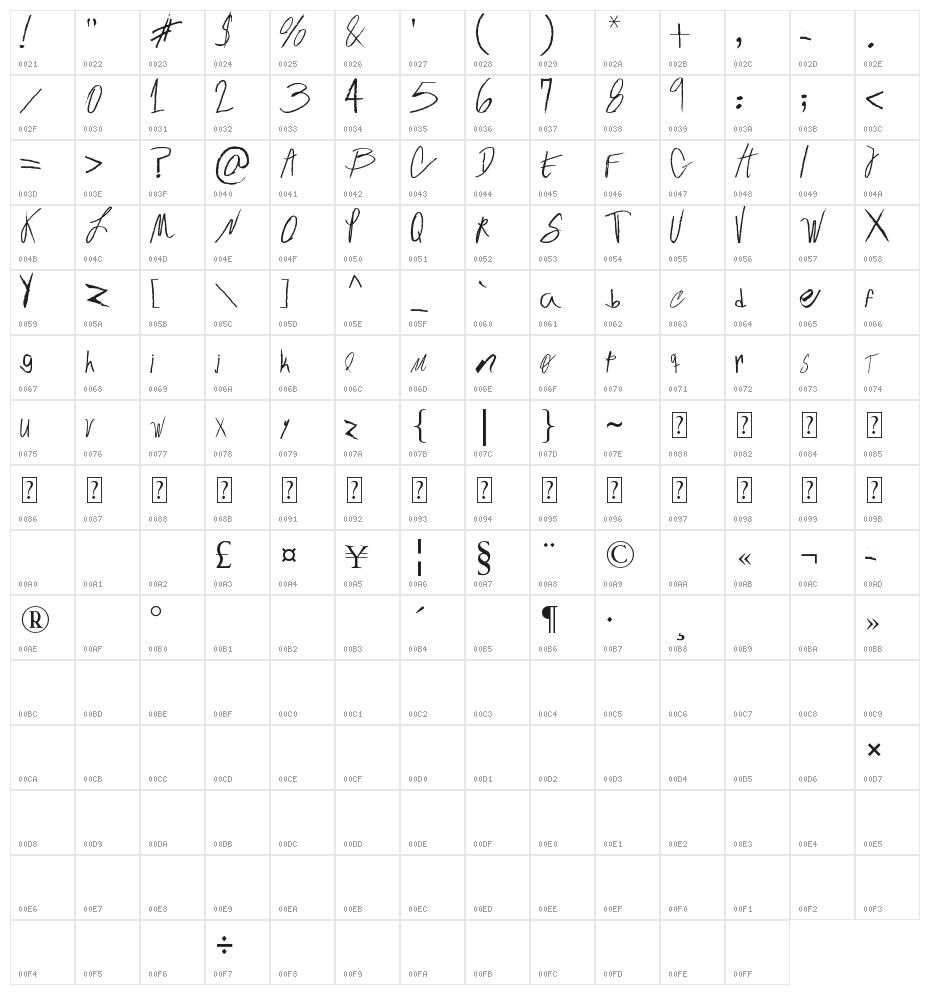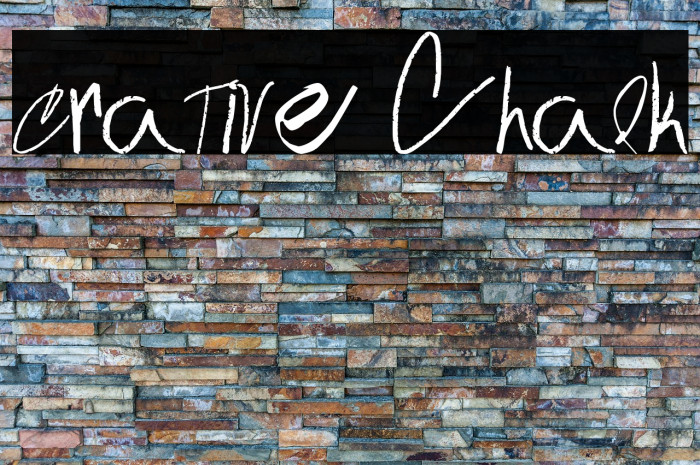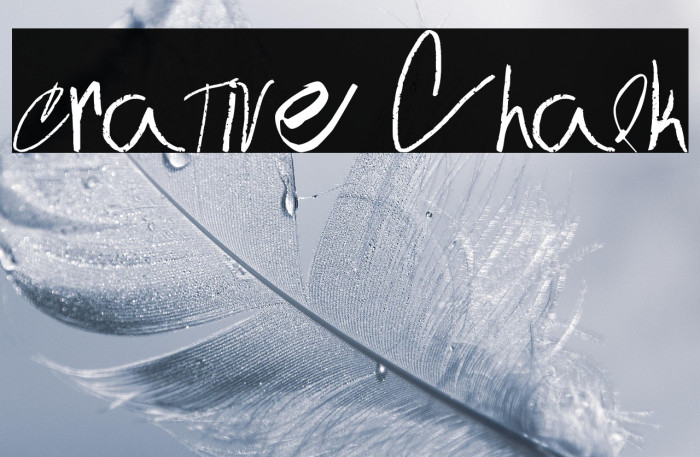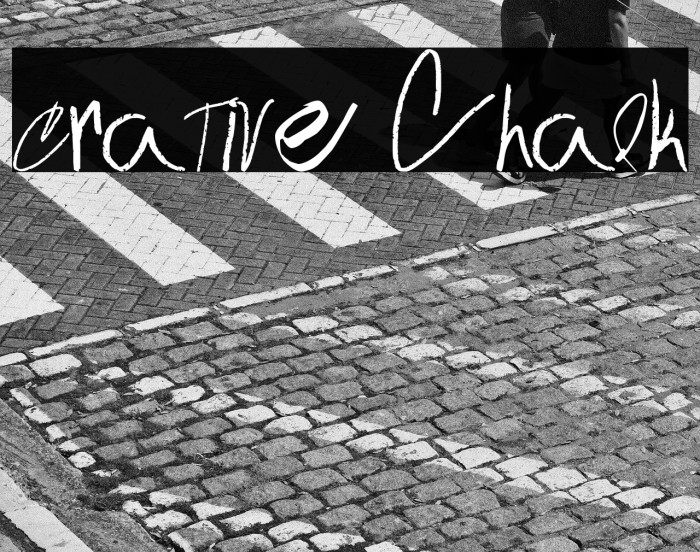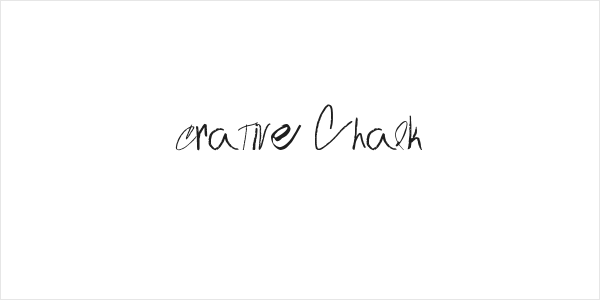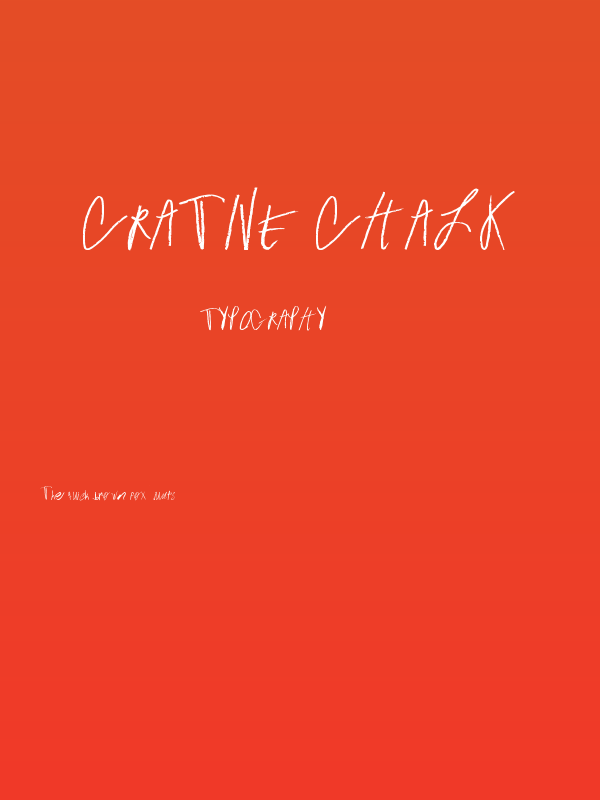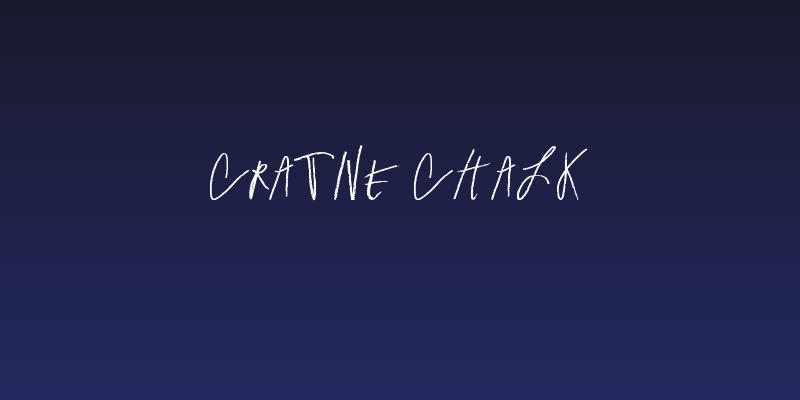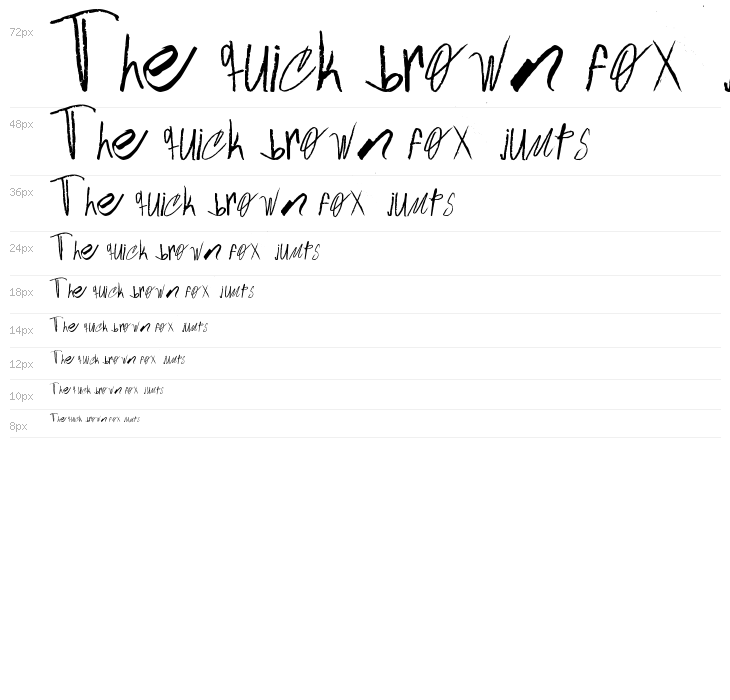
crative Chalk Font
crative Chalk Description
This font exudes a playful and energetic vibe, reminiscent of chalkboard writing. The letters are irregular and dynamic, with a hand-drawn quality that gives them a lively and spontaneous appearance. The uppercase letters are tall and slender, while the lowercase letters maintain a consistent flow, adding to the casual and informal style. Numbers and special characters follow the same energetic style, making the font versatile for creative projects. The strokes vary in thickness, adding a sense of movement and depth. Overall, this font captures a youthful and artistic essence, perfect for projects that require a touch of creativity and fun.
| Overall Style | Playful, Artistic |
| Use Case | Headlines, Creative projects, Informal settings |
| Proposed Projects | Ideal for children's book covers, playful posters, educational materials, and creative branding. |